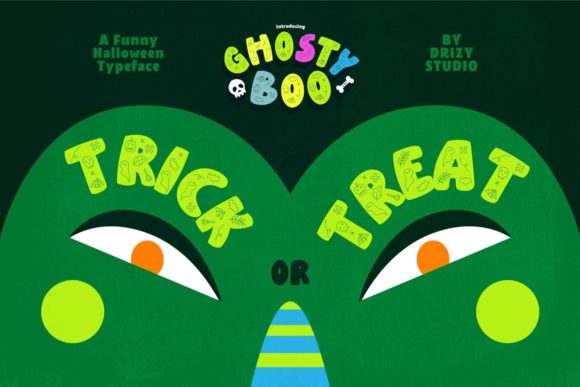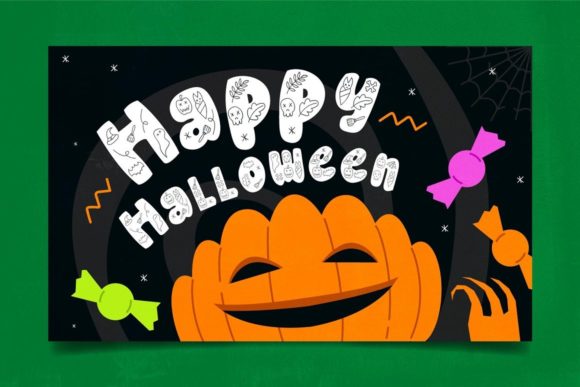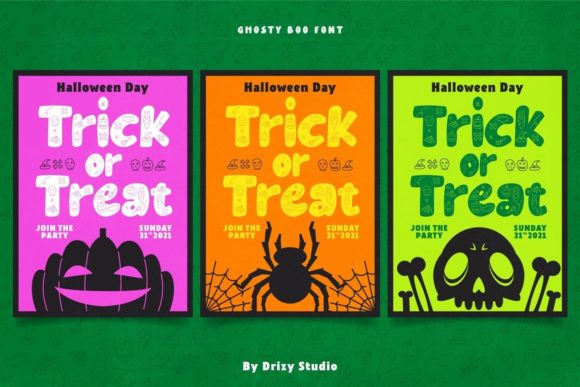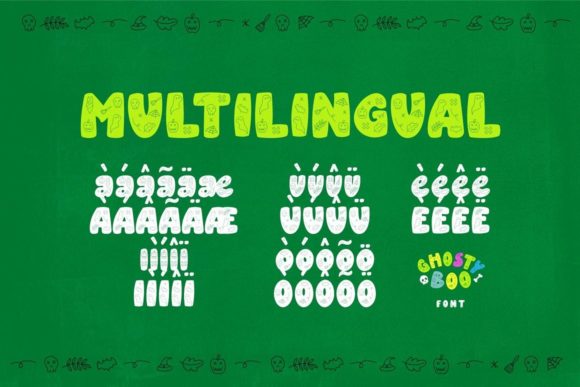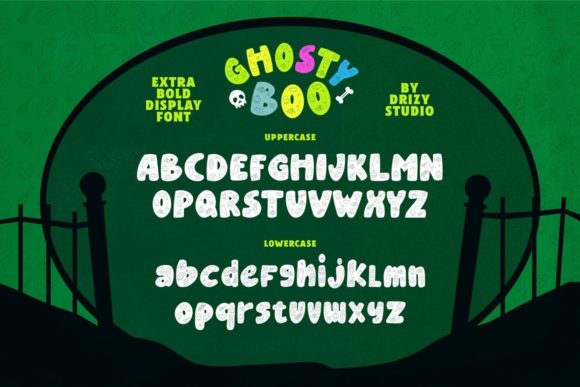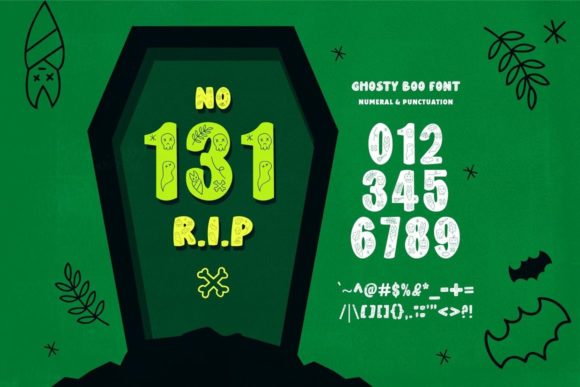
Introducing Ghosty Boo Font: The Spookiest Addition to Your Design Collection
Are you looking for a font that will add a touch of spookiness to your designs, especially during the Halloween season? Look no further than the Ghosty Boo Font! This bold decorative font is adapted from kids’ doodles and features lovely spooky characters that will help you create a nice Halloween mood in every crafty idea.
What is Ghosty Boo Font?
Ghosty Boo Font is a unique and playful typeface that is perfect for designers and crafters who want to add a touch of whimsy and spookiness to their projects. The font is inspired by kids’ doodles, giving it a fun and carefree feel that’s perfect for Halloween-themed designs.
Key Features of Ghosty Boo Font
- Bold and Decorative: Ghosty Boo Font is a bold and decorative font that is sure to grab attention. Its thick lines and playful curves make it perfect for headlines, titles, and other design elements.
- Spooky Characters: The font features a range of spooky characters, including ghosts, bats, spiders, and more. These characters will help you create a Halloween mood in your designs and add a touch of spookiness to your projects.
- Kids’ Doodle Inspiration: The font is adapted from kids’ doodles, giving it a fun and carefree feel. This inspiration is evident in the font’s playful curves and irregular shapes.
- Versatile: Ghosty Boo Font is versatile and can be used in a range of design projects, from Halloween-themed crafts to party invitations and more.
Uses for Ghosty Boo Font
Ghosty Boo Font is perfect for a range of design projects, including:
- Halloween-themed crafts: Use Ghosty Boo Font to create spooky signs, decorations, and other Halloween-themed crafts.
- Party invitations: Create spooky and fun party invitations with Ghosty Boo Font.
- Social media graphics: Use Ghosty Boo Font to create spooky and engaging social media graphics, especially during the Halloween season.
- Logos and branding: Ghosty Boo Font can be used to create unique and memorable logos and branding elements for businesses and organizations.
Tips for Using Ghosty Boo Font
Here are some tips for using Ghosty Boo Font in your designs:
- Experiment with colors: Ghosty Boo Font looks great in a range of colors, especially Halloween-themed colors like orange, black, and purple.
- Mix and match characters: The font features a range of spooky characters. Experiment with mixing and matching these characters to create unique and interesting designs.
- Use it sparingly: Ghosty Boo Font is bold and decorative, so use it sparingly to avoid overwhelming your design.
Ghosty Boo Font is a unique and playful typeface that is perfect for designers and crafters who want to add a touch of spookiness to their projects. With its bold and decorative design, spooky characters, and kids’ doodle inspiration, Ghosty Boo Font is sure to become a favorite in your design collection. So why not give it a try and see how you can use it to create some spooky and fun designs?